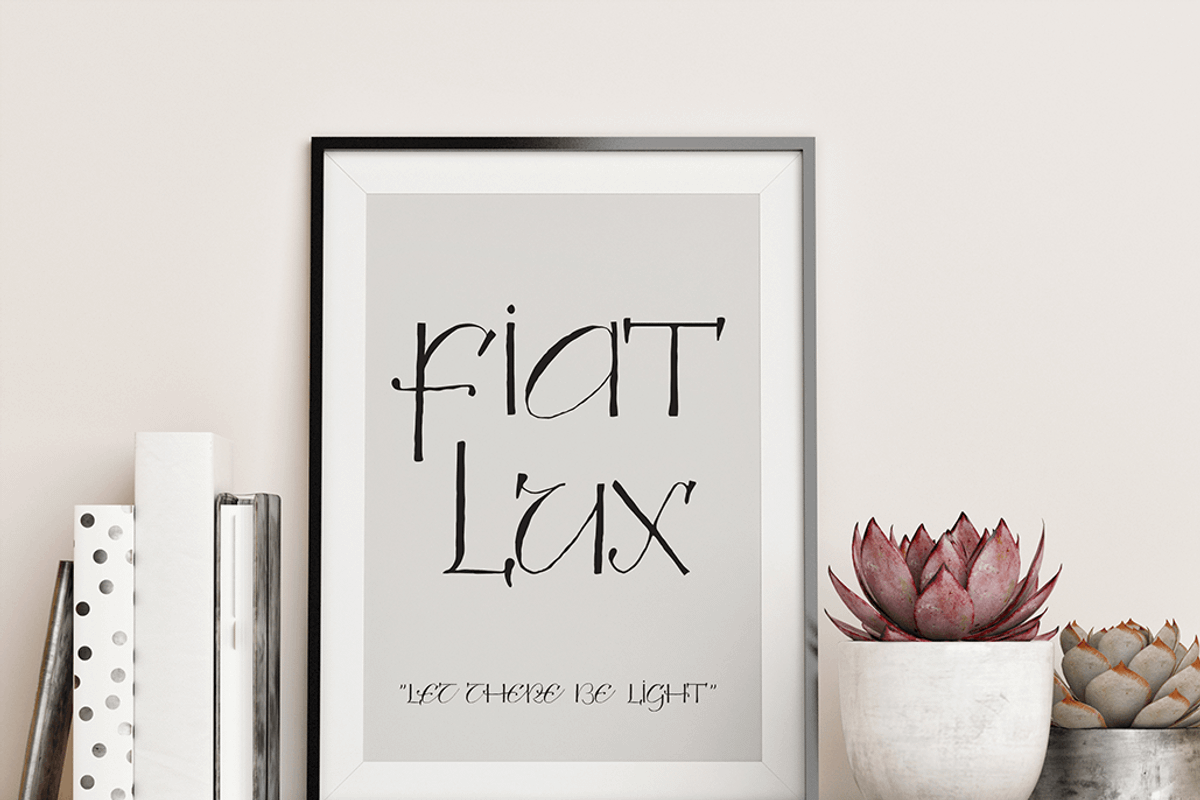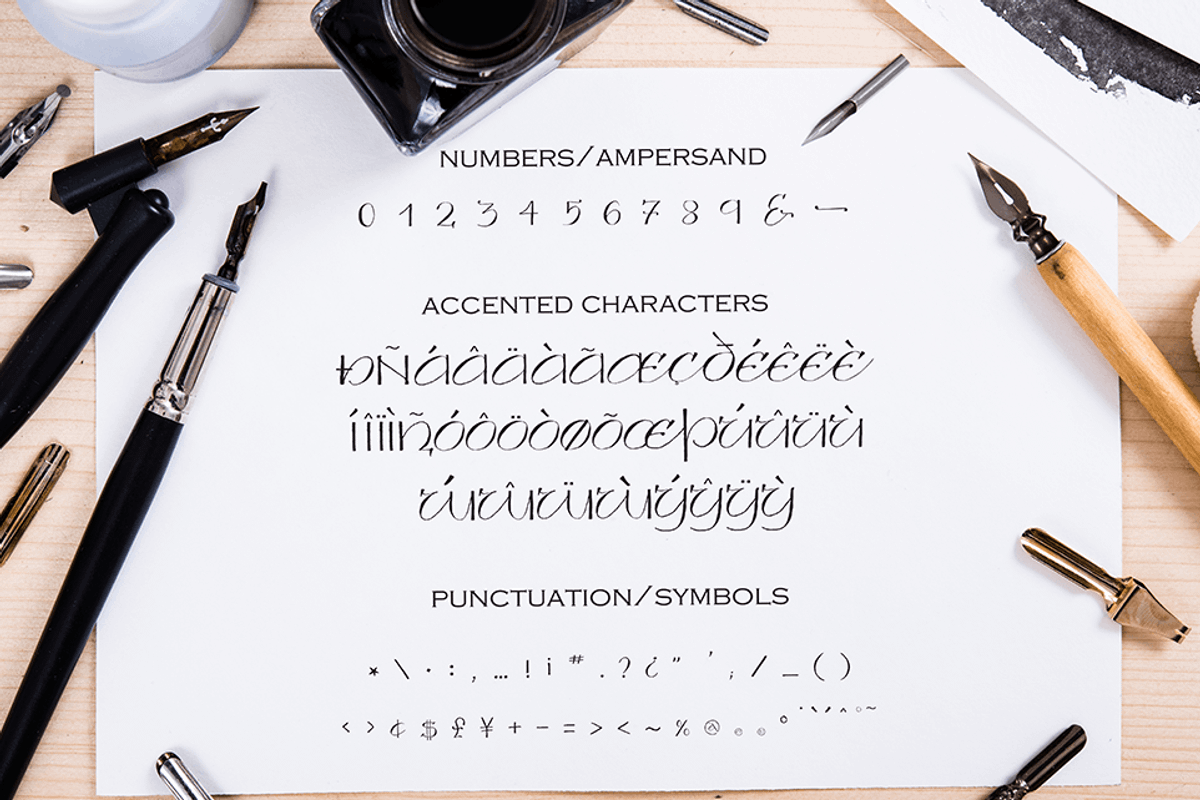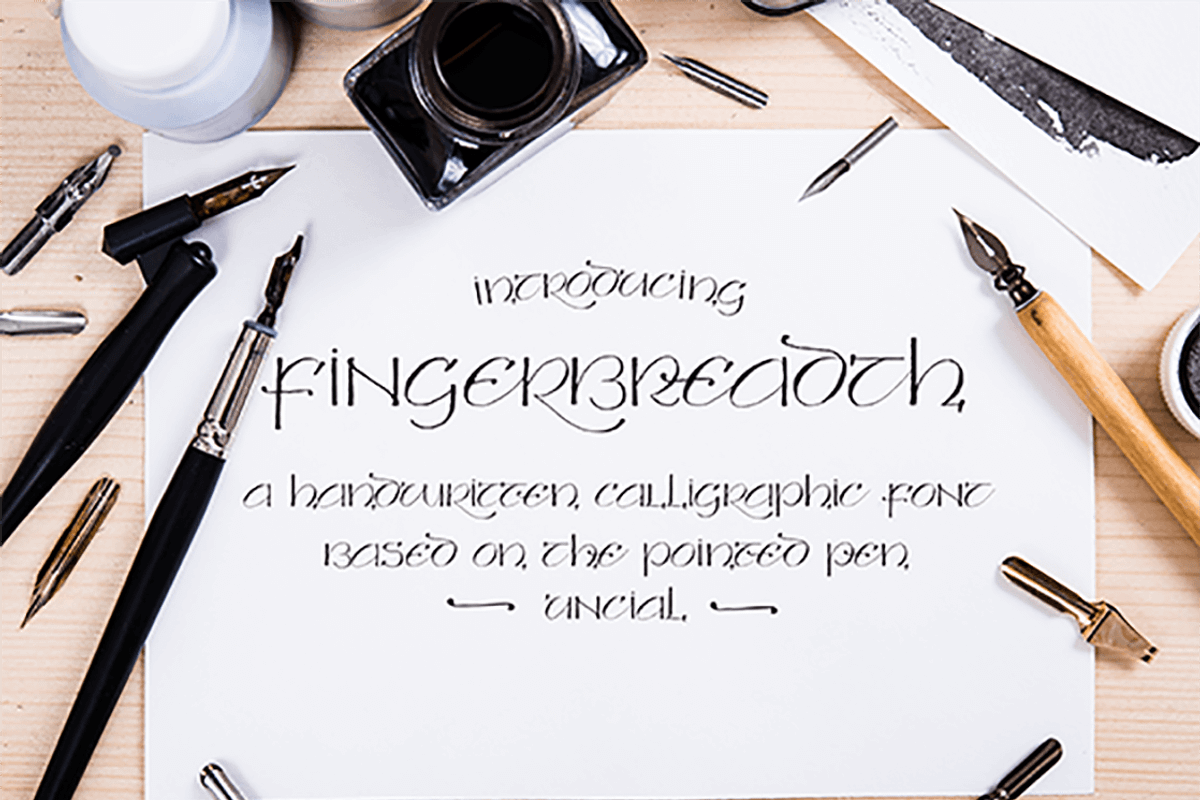
Fingerbreadth Font
Create a classic yet modern design with Fingerbreadth typeface. This is a handwritten font based on the pointed pen uncial.
The uncial (latin for "inch") is a calligraphic style penmanship that is normally written with a flat tip pen. It is mainly seen with ancient Latin and Greek manuscripts. Most uncial is written using only the x-height for a letter with very few extenders or descenders. I have designed Fingerbreadth with the traditional uncial in mind but created a modern translation with the beloved pointed pen. The result is a beautiful, delicate and classic font.
FIngerbreadth comes with the standard alphabet,numbers, punctuations, a variety of ligatures, alternate letter forms, accented characters, an ampersand and a little swash!